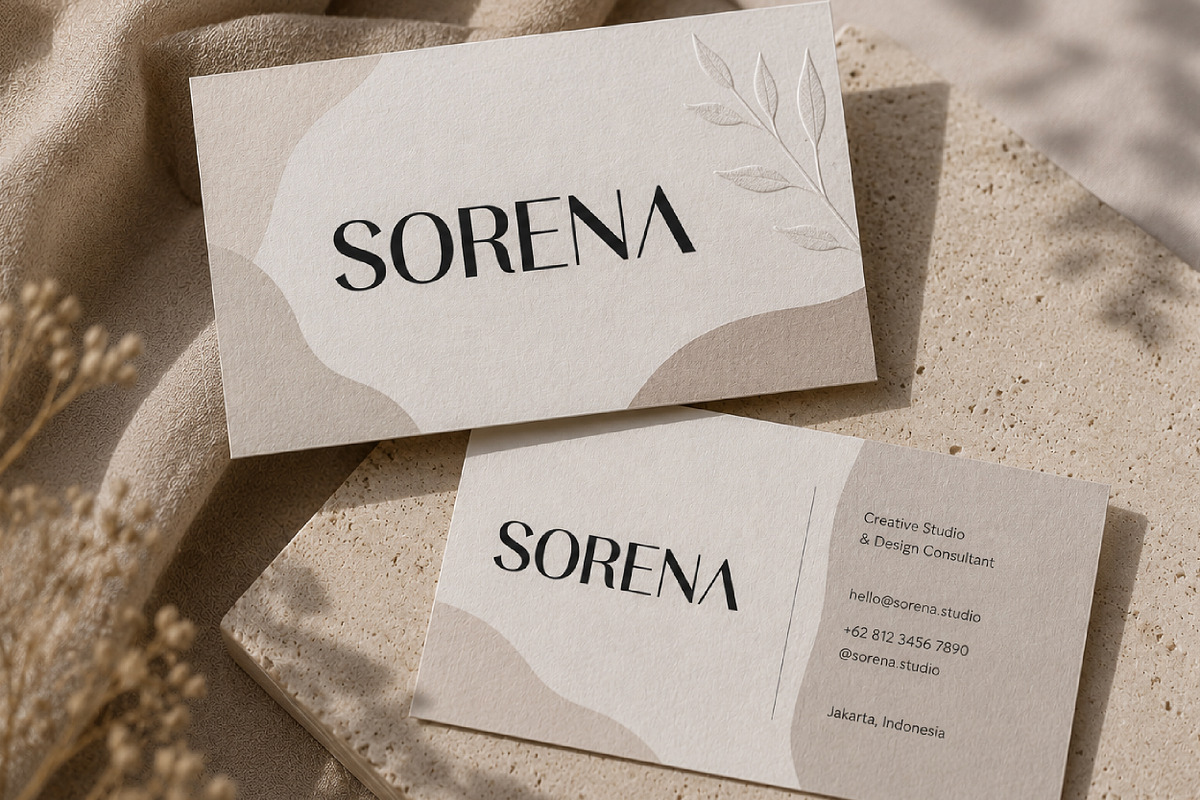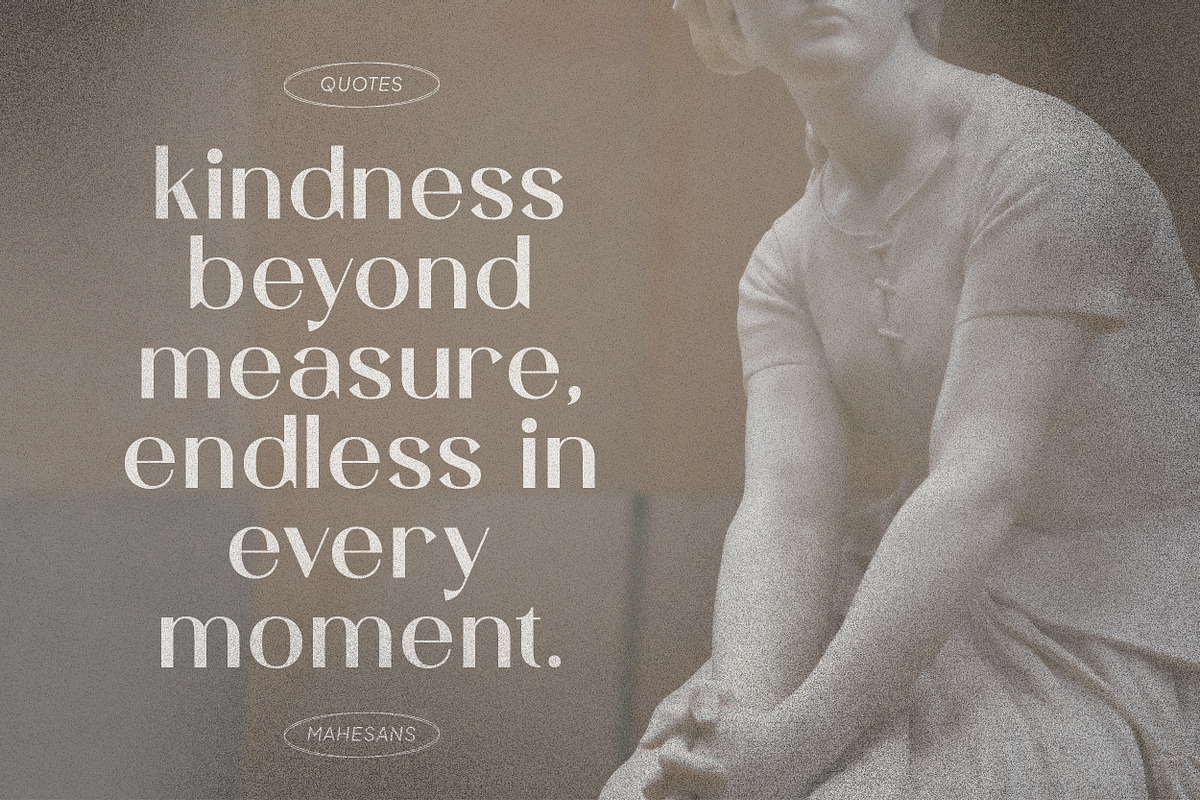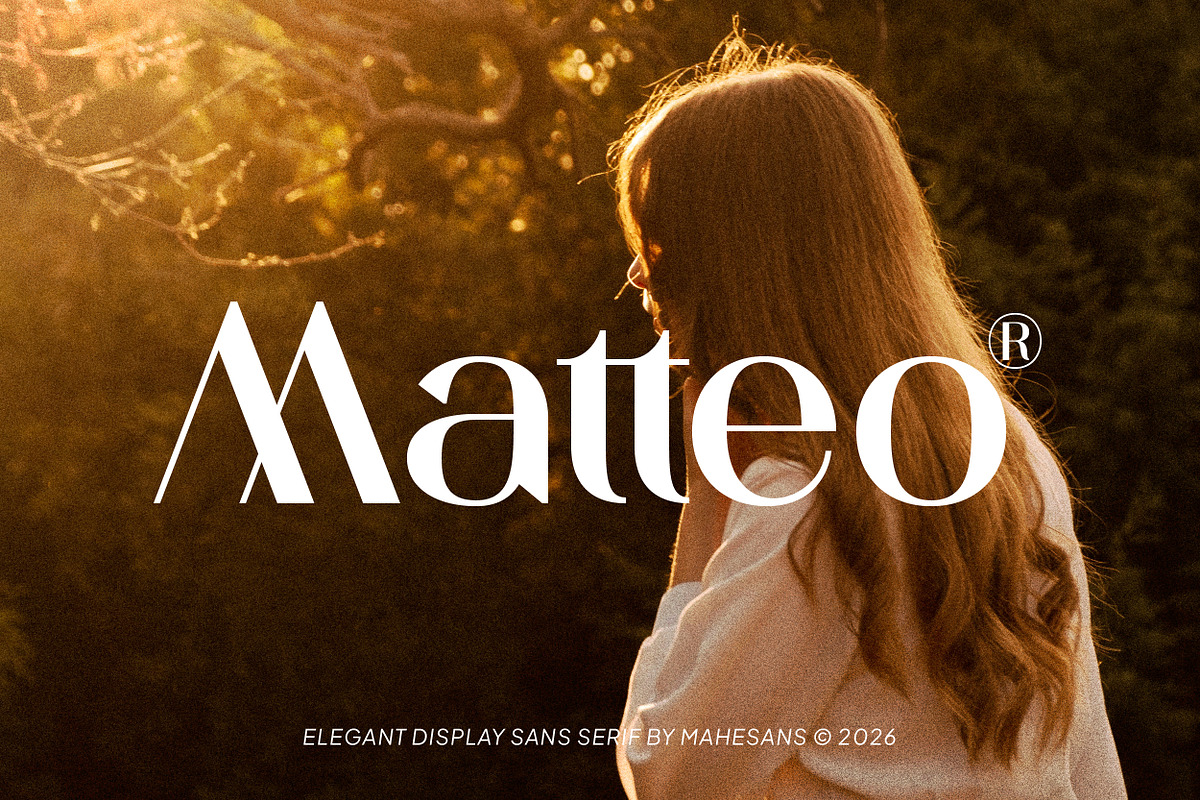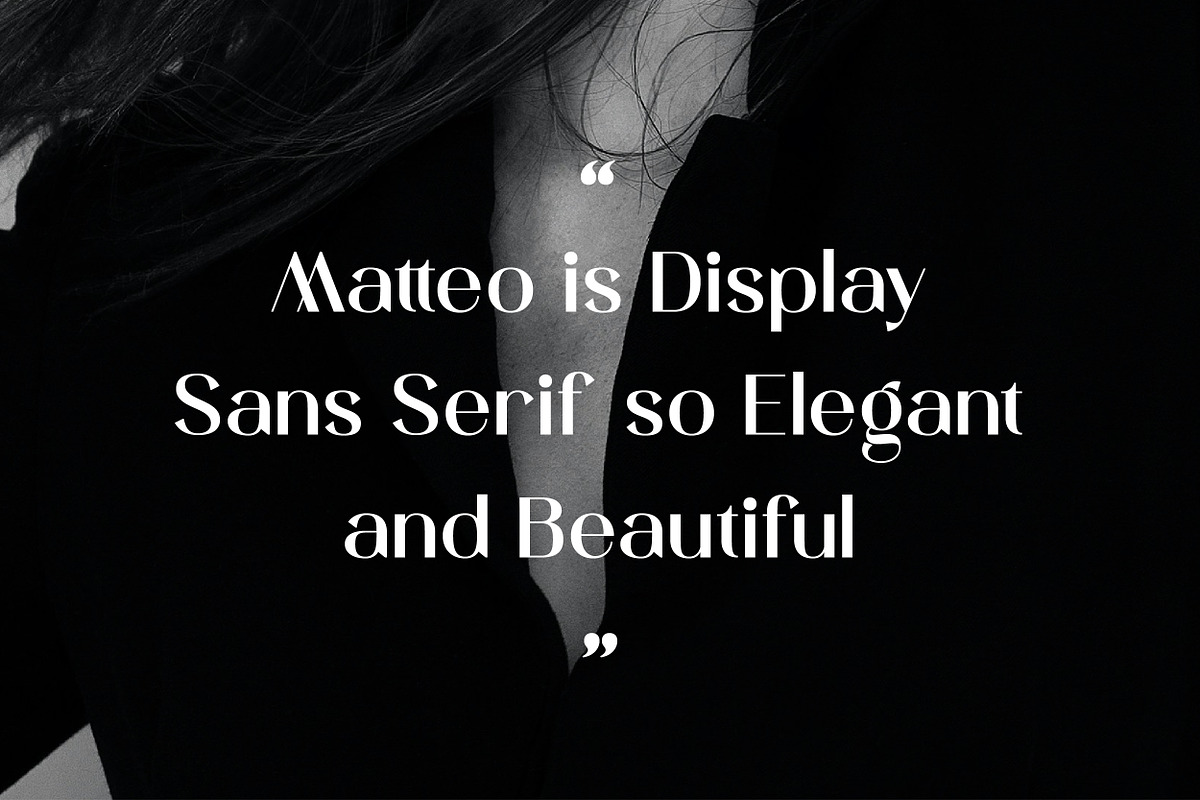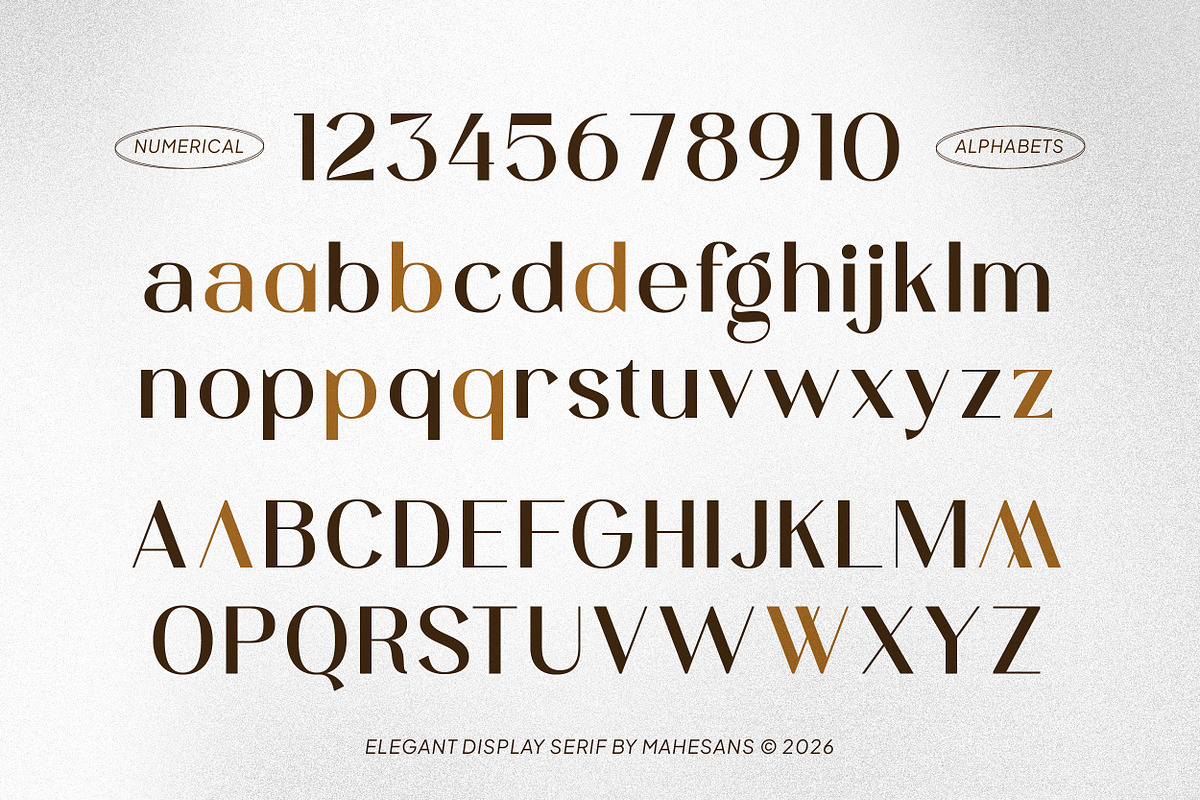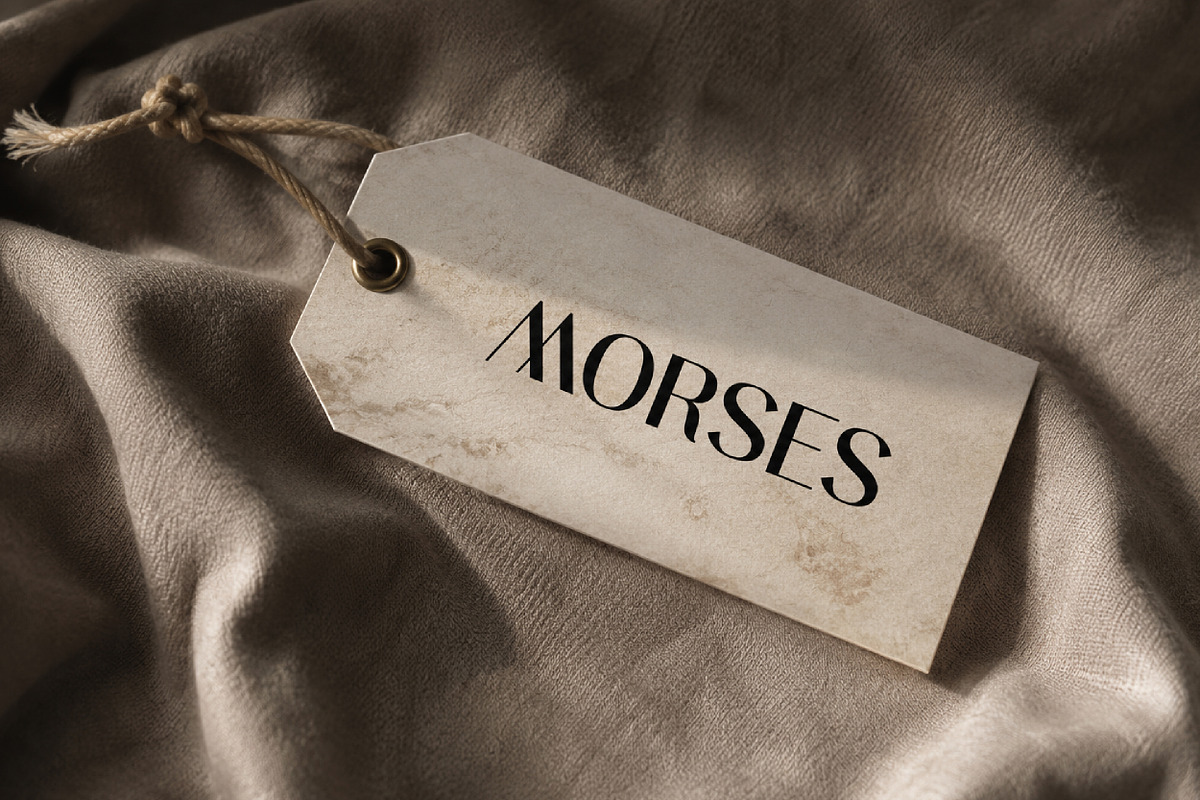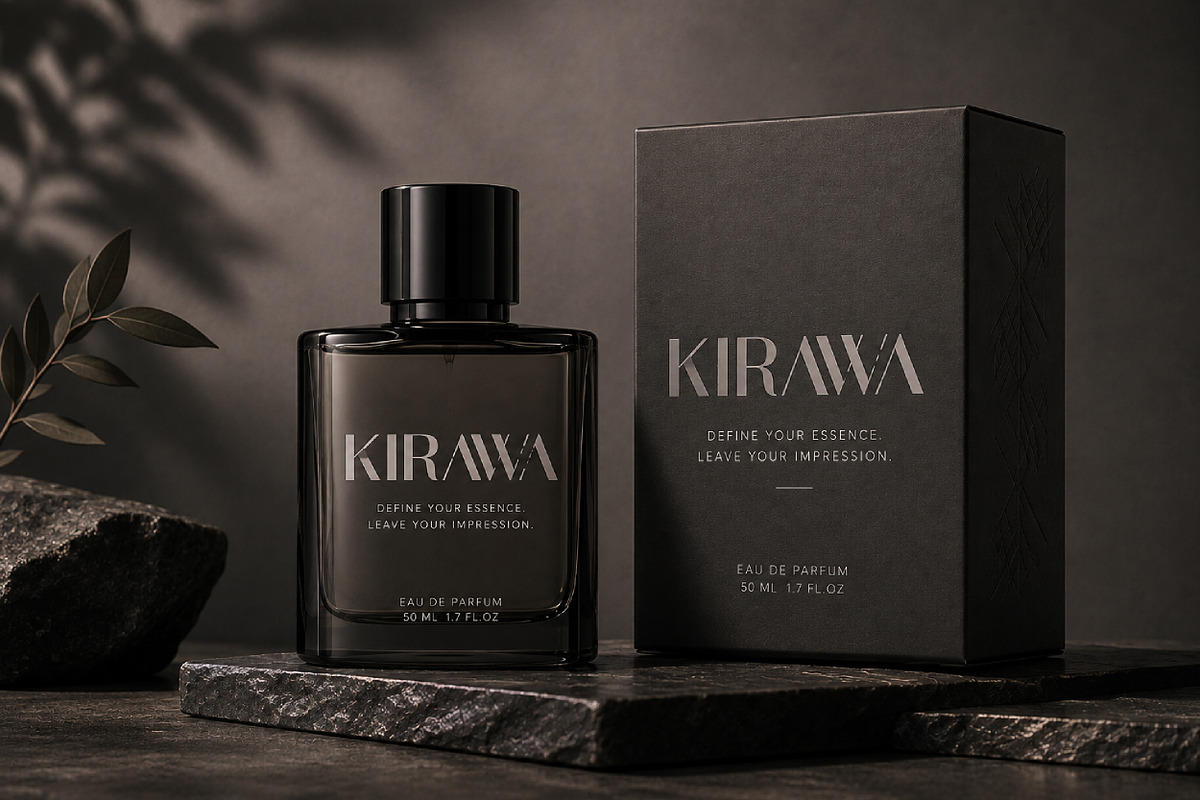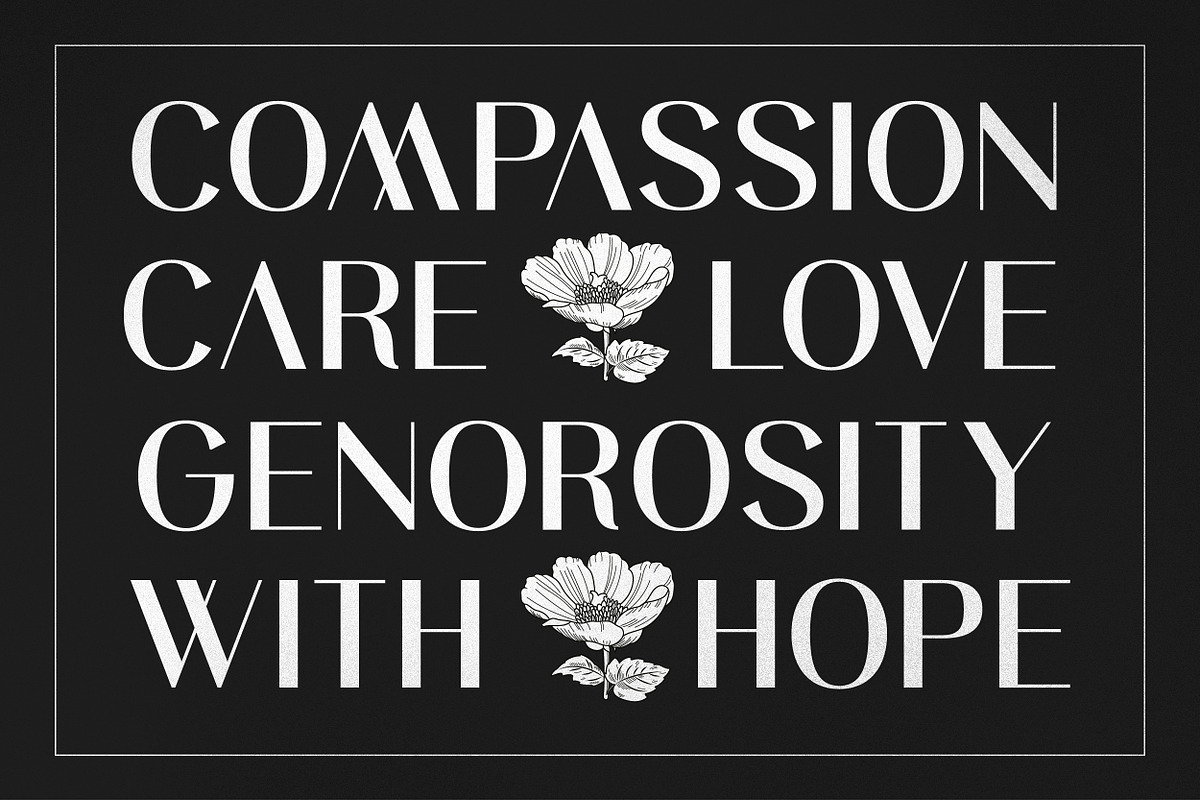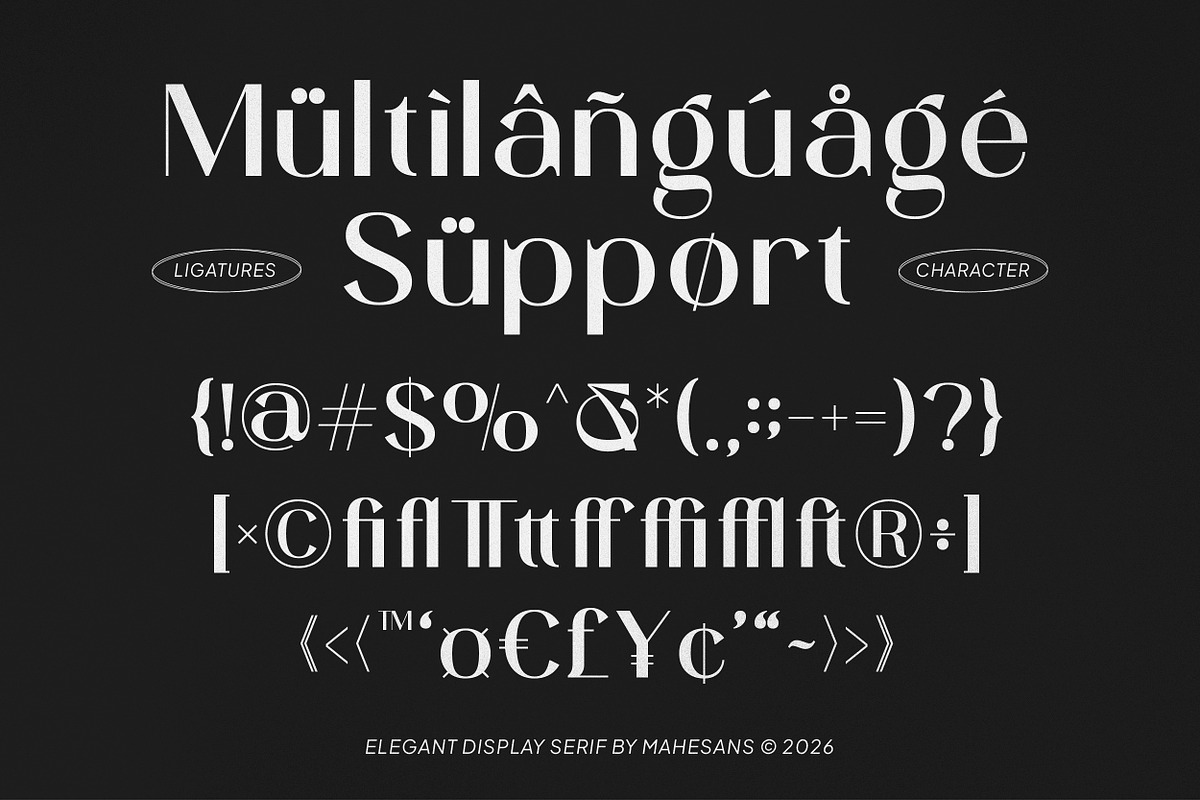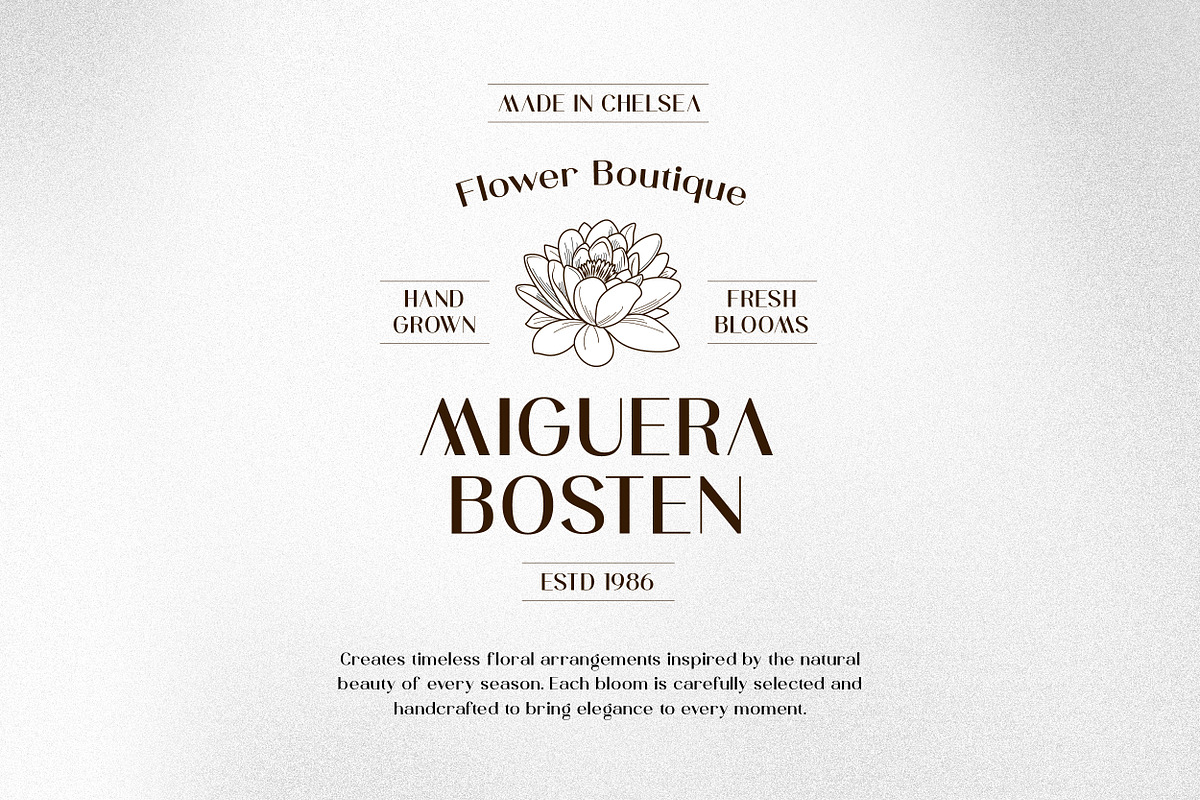
Matteo – Elegant Display Sans Serif
Matteo is an elegant display sans serif typeface designed to bring sophistication, fashion, and a distinctive editorial character to your designs.
Featuring a refined high-contrast structure, graceful curves, and unique geometric details, Matteo strikes a balance between modern minimalism and timeless elegance. Its distinctive letterforms make it especially effective for creating memorable headlines, luxury identities, and stylish visual compositions.
Perfect for luxury branding, fashion campaigns, editorial layouts, beauty products, boutique identities, wedding stationery, magazine covers, posters, packaging, social media graphics, and logo design.
Matteo is designed to stand out at large sizes, making it an excellent choice for impactful headlines, brand names, and sophisticated display typography.
- Luxury & Fashion Branding
- Logo & Monogram Design
- Editorial & Magazine Design
- Beauty & Cosmetics
- Boutique & Lifestyle Brands
- Wedding & Event Stationery
- Posters & Headlines
- Packaging Design
- Social Media & Advertising
- Modern Editorial Projects
- Multilanguage